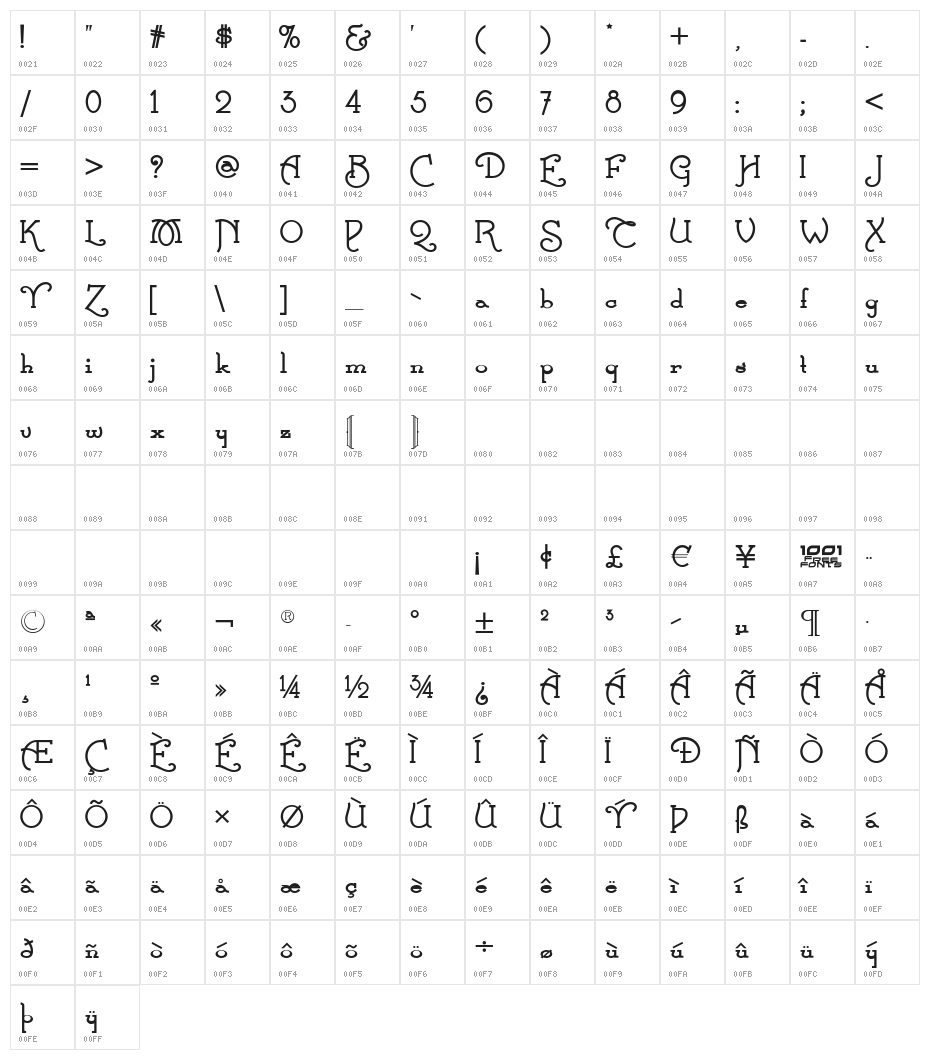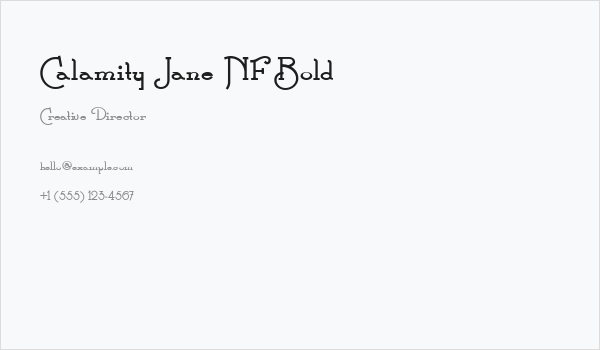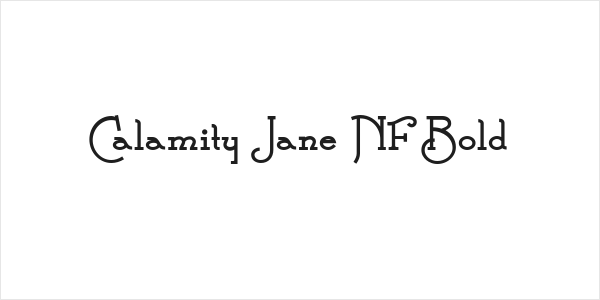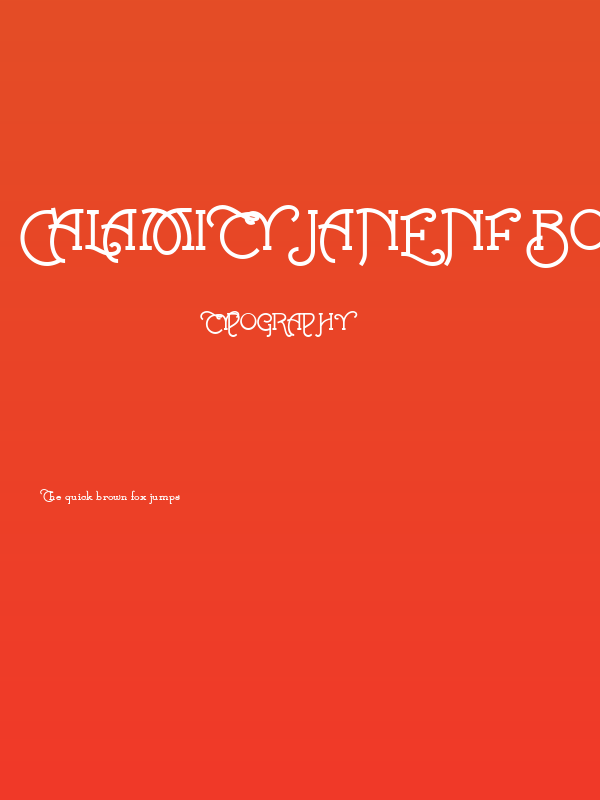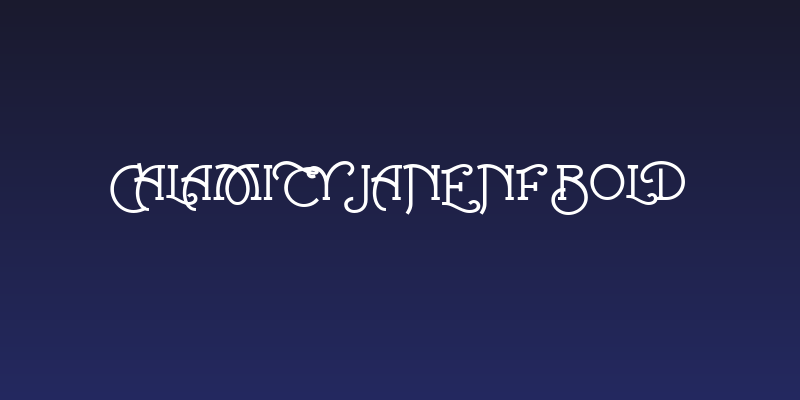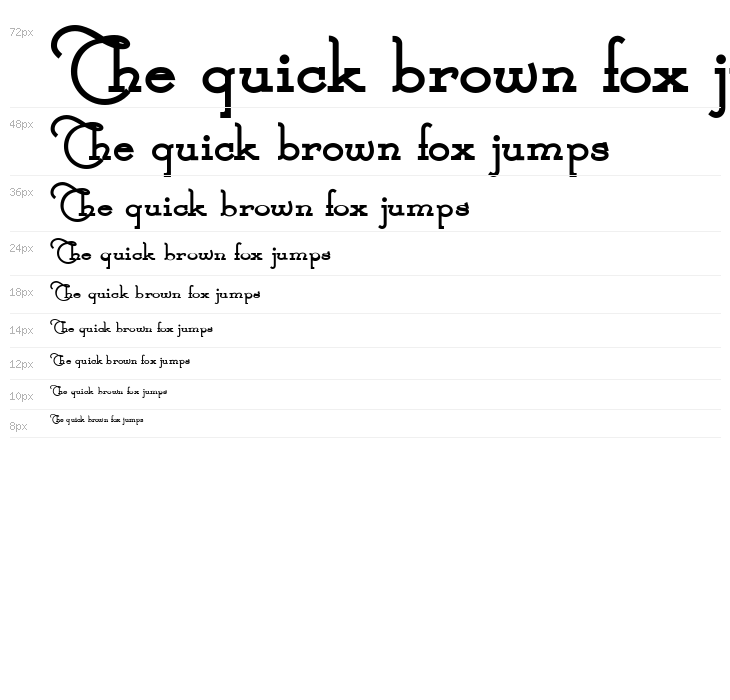
Calamity Jane NF Bold Font
Calamity Jane NF Bold Description
This font features a bold and decorative style with unique, swirling serifs and intricate details. The uppercase letters are particularly ornate, with flourishes that give a sense of movement and elegance. The lowercase letters maintain a consistent boldness, offering a more straightforward yet still decorative appearance. Numbers and special characters are designed to match the overall style, with some featuring additional embellishments. This font is ideal for projects that require a touch of vintage charm and artistic flair.
| Overall Style | Vintage, Decorative |
| Proposed Projects | Ideal for vintage-themed posters, invitations, branding, and decorative headlines. |